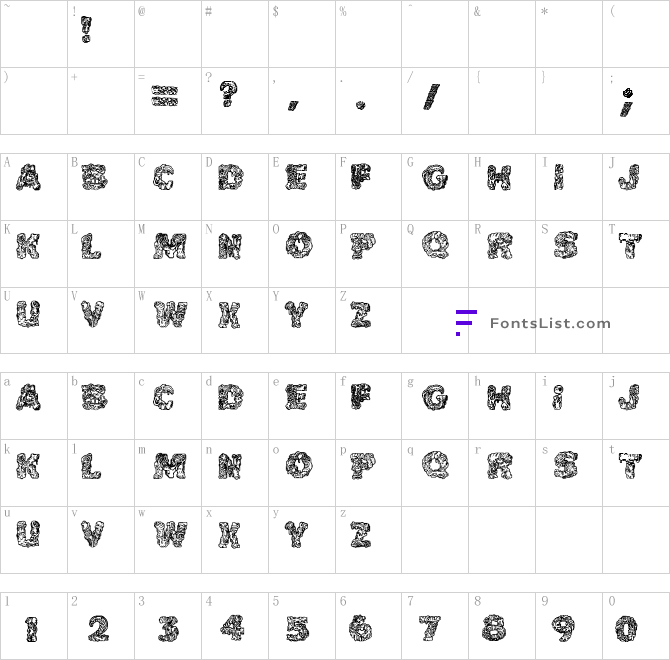
- Font Name:Cake Frosting
Cake-Frosting-Decorative.ttf is a very beautiful artistic font, Cake-Frosting-Decorative.ttf is widely used in the design and printing of various books and pictures,Cake-Frosting-Decorative.ttf has a strong visual impact,Cake-Frosting-Decorative.ttf is a commonly used font in newspapers, magazines and books, and is used in posters, e-commerce Poster design, store design, logo design, font design and other fields.Cake-Frosting-Decorative.